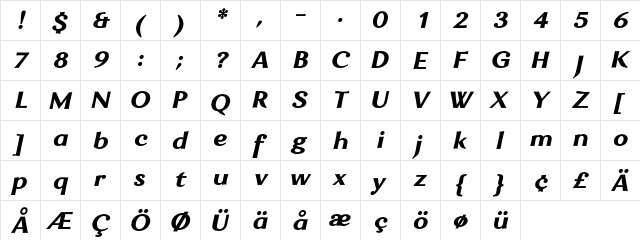
Enzia Black Italic
Design Context for Enzia Typeface
Enzia takes a measured approach to typography — its balanced proportions and neutral character make it a reliable workhorse for both digital and print work. The dynamic lean of this cut emphasises speed and emphasis in any layout.
Pro Tip: Use Enzia for emphasis, pull quotes, and subheadings where its slanted energy can add rhythm to the layout.